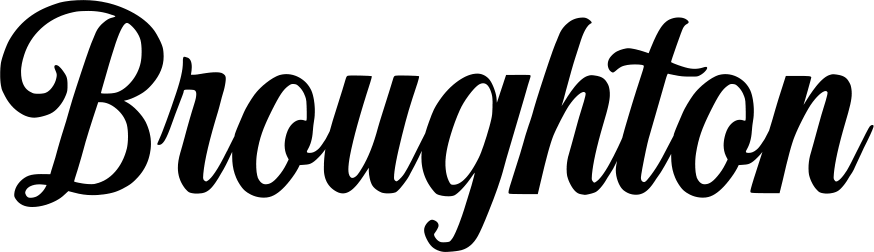
Broughton Font
Let’s see what we brought you, it is worth using this Broughton script font for accentuating your typography and overcoming your competitors. Its aesthetic features; creative, playful, and the curved body of its letters can have a huge impact on the design of any invitation, brand, card, poster, headline, logo, and outfit, no matter how challenging its readability.